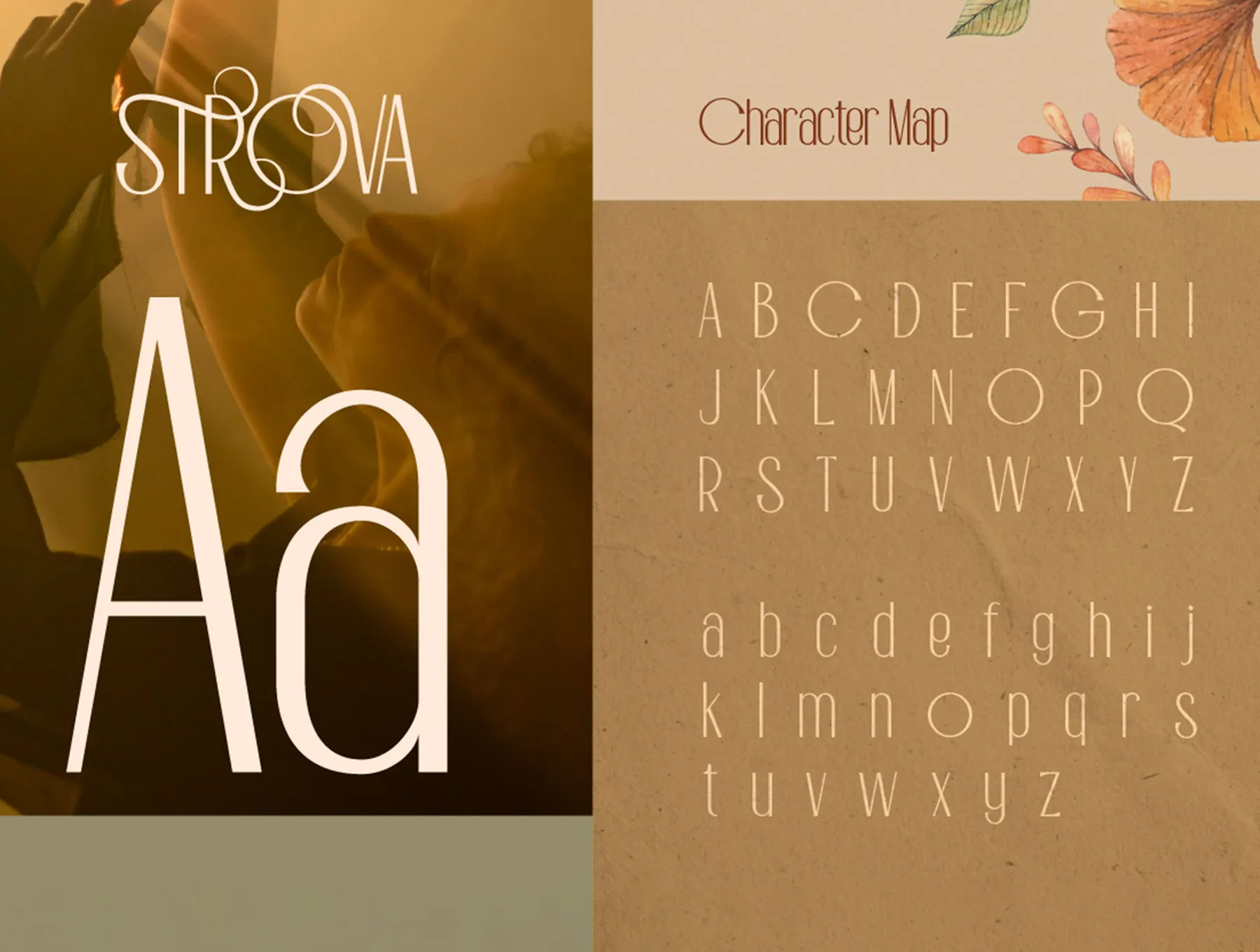
Meet Strova, a free mystical typeface designed to transport you to a world of magic through typography. Strova captures the essence of grace and mystery with its delicate curves and refined details. Perfect for invitations, book covers, and branding projects that crave an enchanting touch, this font whispers tales of forgotten spells and transforms ordinary text into a captivating visual experience. Whether aiming to evoke an ethereal atmosphere or bring sophistication to your design, Strova is the key to unlocking your creative potential and captivating your audience.
Strova Free Mystical Typeface for Dreamers